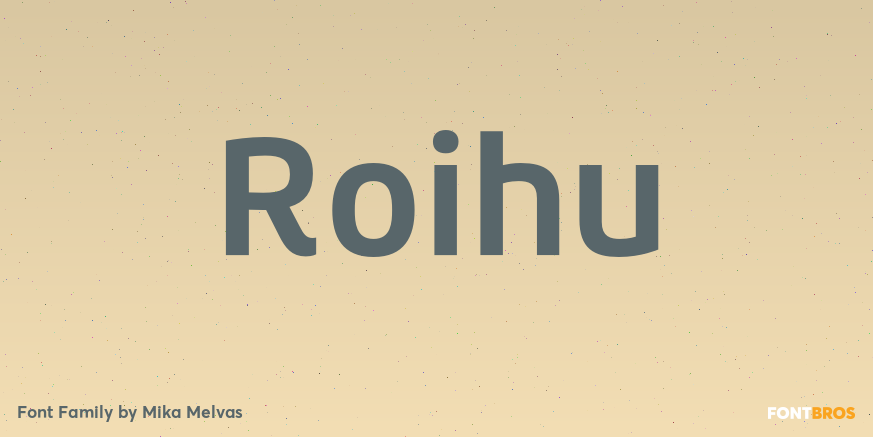
Roihu
About Roihu
Roihu is a sans serif type family of 16 fonts. Consisting of eight upright and eight italic weights. Each weight has over 1,100 glyphs. It includes some groovy stylistic alternates and swashes of which you can use to make your titles, packages, logos…